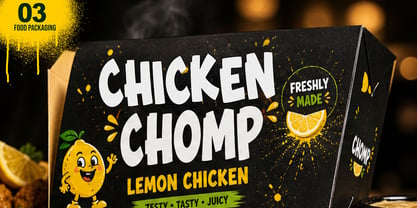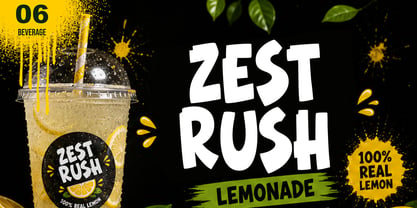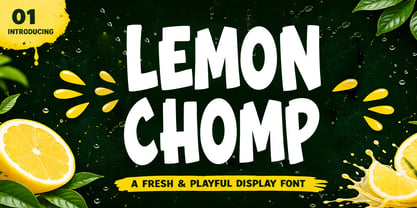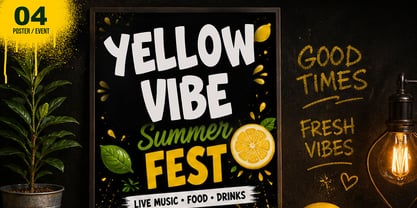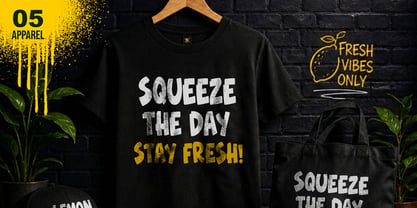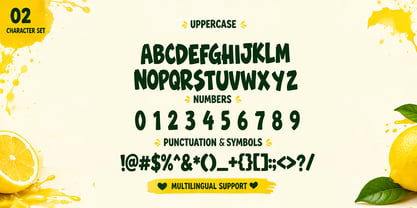
Introducing Lemon Chomp, an effervescent display font marinated in the lively spirit of vibrant branding culture, fruit-inspired aesthetics, and modern animated typographic trends. This font showcases robust letterforms balanced by organic contours, imparting a contagious rhythm that puts the 'fun' back in typography. Unmistakable for its exuberant personality and dynamic allure, Lemon Chomp is tailored to make a powerful visual statement while preserving an accessible style.
From branding and packaging to children-themed projects and digital campaigns, Lemon Chomp's playful shapes are infused with a bold readability, making it a versatile fit in any creative scenario. Inspired by the zesty visuals of fruit imagery, lighthearted illustrations, and snack packaging, Lemon Chomp perfectly encapsulates a supremely refreshing and cheerful ambiance, reminiscent of colorful festivals and contemporary creative design.
Each character in this collection is meticulously crafted, resulting in typography that echoes with vivacity and leaves a lasting impression. Be it food and beverage branding, snack promotions, YouTube thumbnails, festival posters, or greeting cards, Lemon Chomp infuses charm and personality into each design endeavor it's a part of.
Unmistakably playful yet contemporary, Lemon Chomp is a font that excels in all things expressive and lighthearted. It works brilliantly with oversized titles, colorful packaging, and playful logos, maintaining its unique charm across multiple visual compositions and logo designs.
The robust structure of Lemon Chomp facilitates striking, attention-grabbing headlines while ensuring readability across print and digital mediums. Its roundness and exaggerated proportions lend a soft and approachable energy, simplifying complex designs and making them more interactive.
Lemon Chomp is more than just a font – it's an artist's best friend when it comes to lively branding, creative packaging, children's design, cartoon-style compositions, or any project that demands a fun and modern typographic presence. With an added bonus of multilingual support, comprehensive punctuation, and numeric characters, this font offers seamless functionality and flexibility for both professional and personal creative pursuits.
Leisurely yet lively, this font beams with cheerfulness and energizes any design it's infused with. Its bold charisma is ideal for creators who prefer typography that's buoyant, fresh, and expressive. The font's organic curves set in motion a brilliant play of visual rhythm, enhancing user engagement and aiding memory retention.
Adopt the zesty energy of Lemon Chomp and transform the ordinary into extraordinary, injecting a sense of freshness and joyfulness into your work. With its vibrancy and memorable structure, it's perfect for creatives searching for modern display typography that radiates character, readability, and effervescent visual charm. Embark on a colorful design adventure with Lemon Chomp and let your imagination run wild.